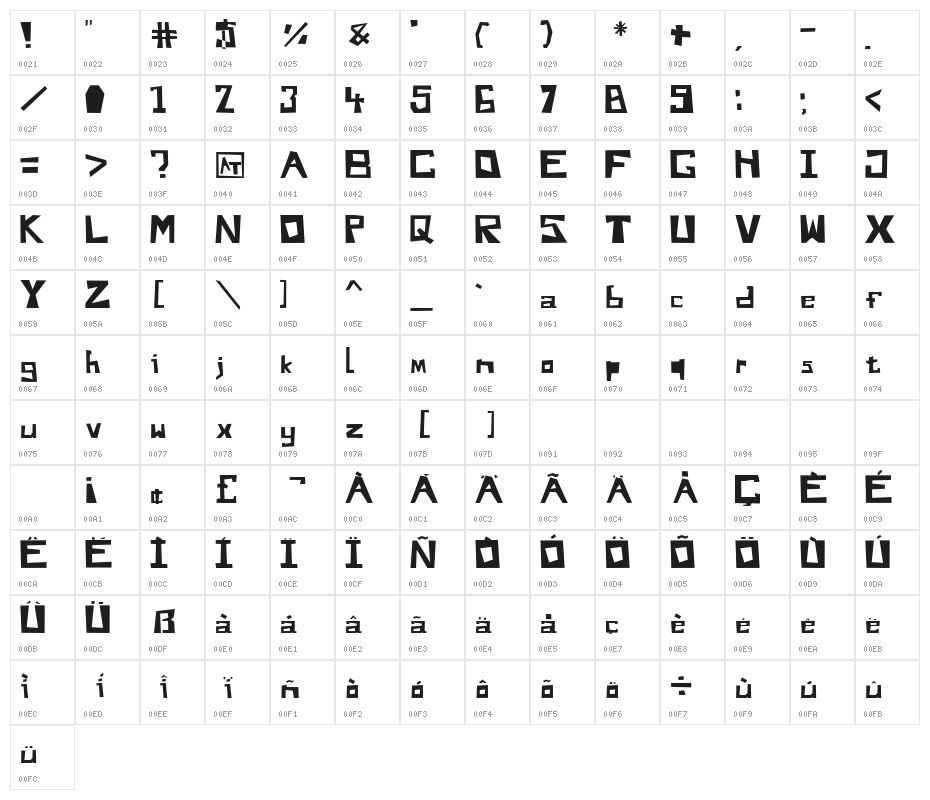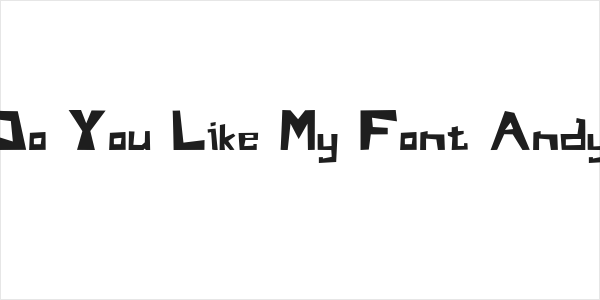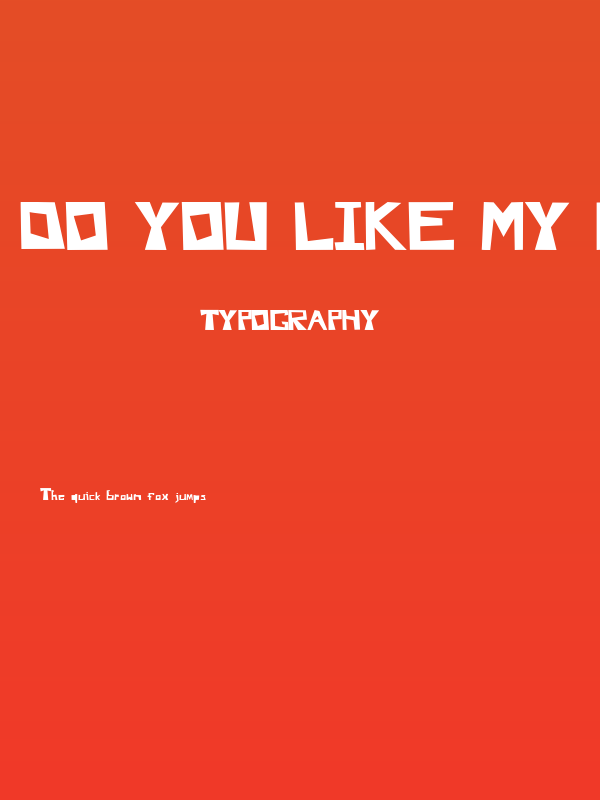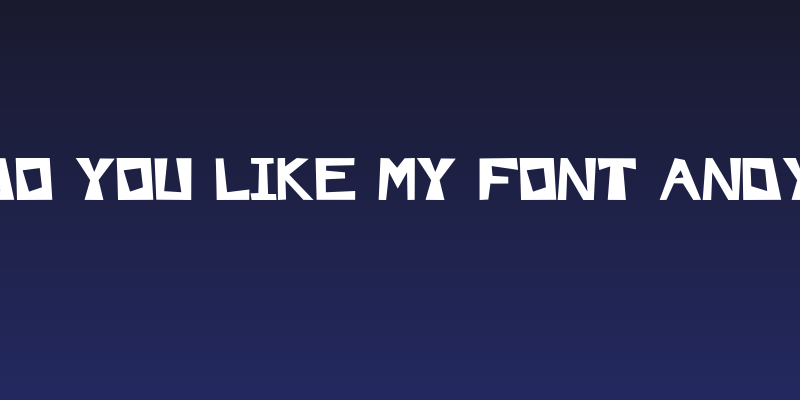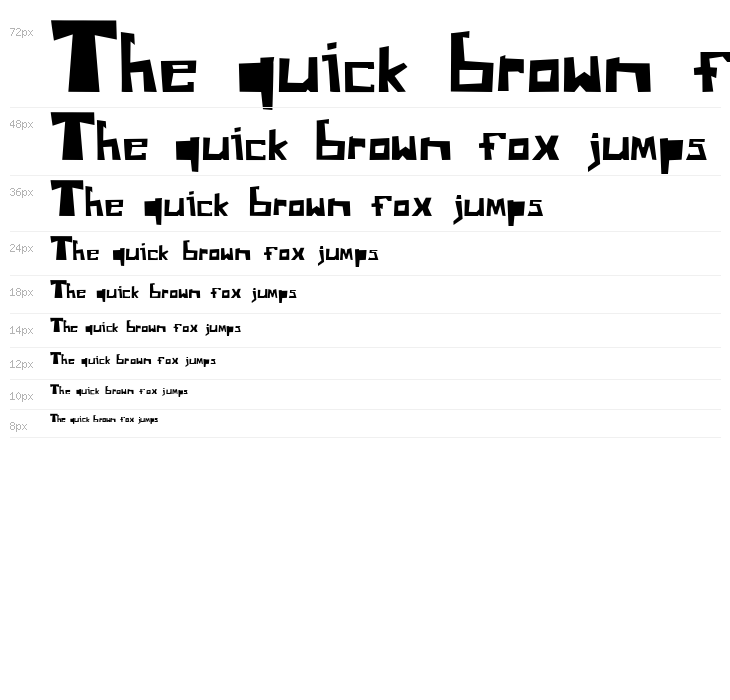
Do You Like My Font Andy Font
Do You Like My Font Andy Description
This font features a bold, angular design with a distinctly geometric and abstract style. The characters are constructed with sharp edges and irregular shapes, giving it a dynamic and edgy appearance. The uppercase letters are particularly striking, with a blocky and fragmented look that suggests movement and energy. The lowercase letters maintain this angular theme, though they are slightly more compact. The numerals and special characters follow the same design principles, ensuring consistency across the typeface. This font is highly decorative and makes a strong visual impact, ideal for projects that require a bold statement.
Proposed ProjectsIdeal for posters, album covers, video game titles, and any project needing a bold, eye-catching typeface.